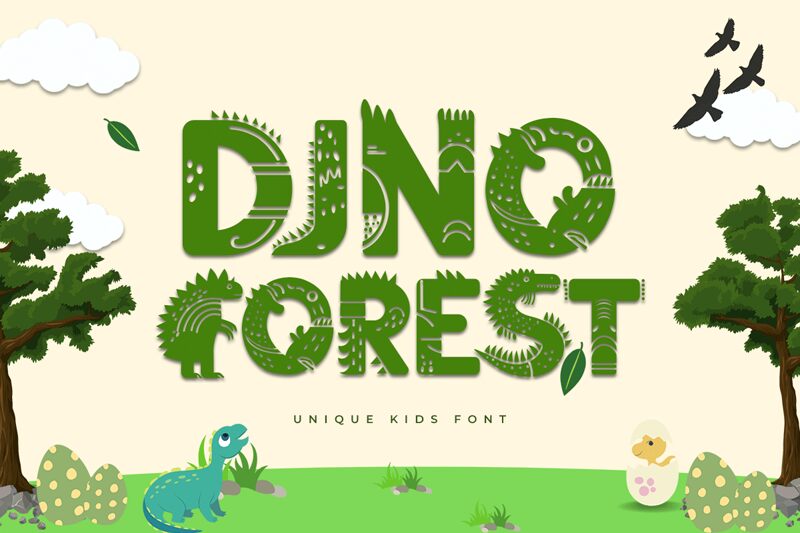
Dino Forest font by Kong Font is a free decorative font, presenting a unique medley of typographic characters inspired by mighty dinosaurs. Each character combines thematic and stylistic effects that result in an imaginative and animated typeface. This youthful font engages and attracts attention with its distinctive spirit, but with smooth reading for both long and short texts.
Use Dino Forest in projects where the spirit of the dinosaurs is welcome: the signage for children’s nurseries and playgrounds, zoo branding and stationery, posters, or comic book covers. The typeface can also be used for fun in personal projects such as invitation cards, post cards, or greeting cards.